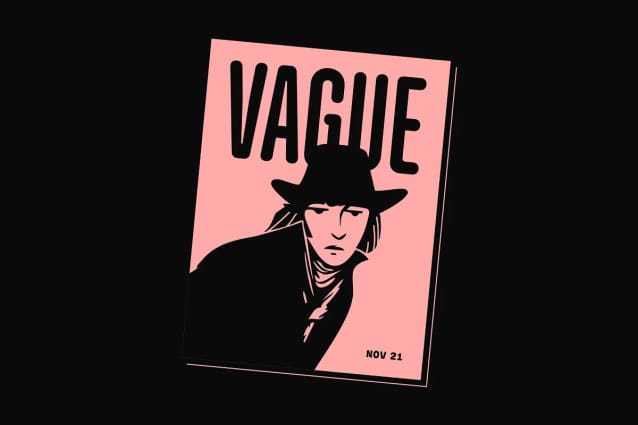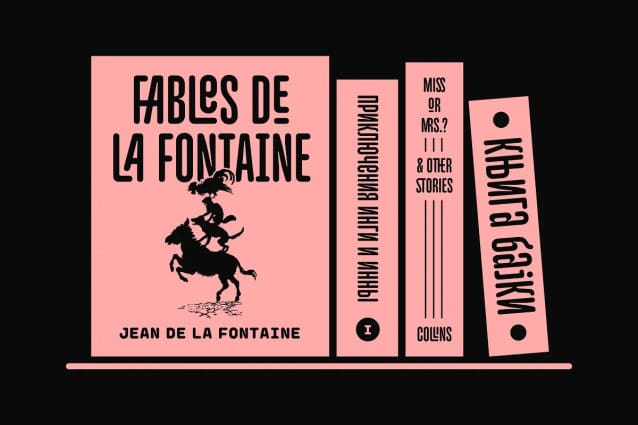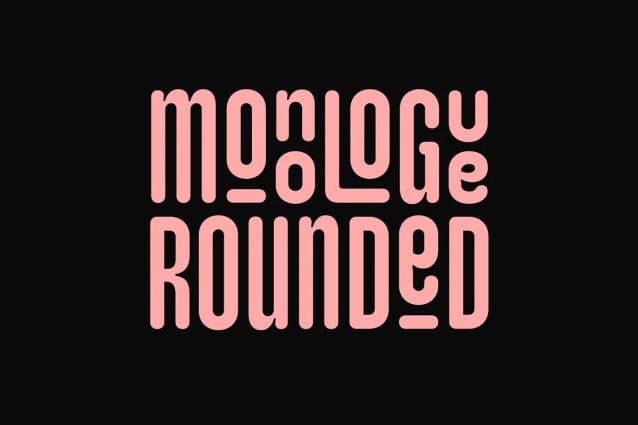
Monologue Rounded Font
Monologue Rounded Font is a simple, condensed sans serif font with bold and complex personality. It was purposely crafted to be used in large point sizes, although it doesn’t lose it’s magic in small point sizes. With this rounded version, you can be even more expressive in your design projects.